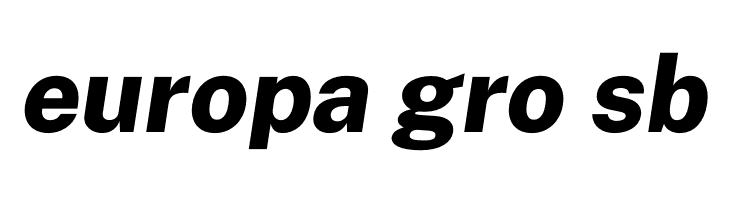
A bold, italicized font with a modern and assertive style.
A bold, italicized sans-serif font with a modern and clean design.
A bold, italic sans-serif font with a modern and dynamic style.